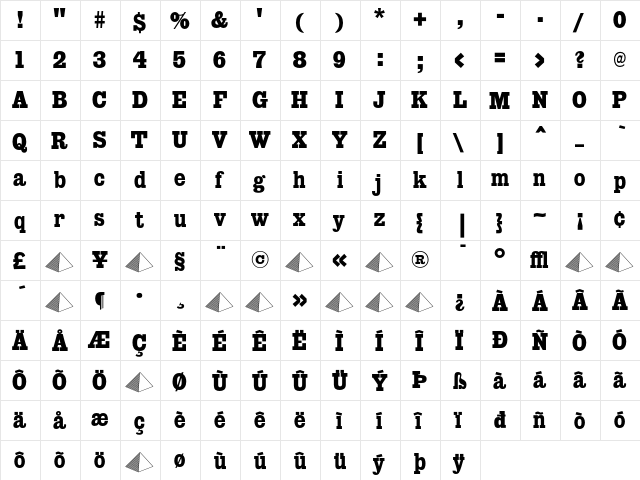
Giza OneThree
Design Context for Giza Typeface
Giza is a composed and adaptable typeface that performs quietly and consistently across a wide range of design contexts.
Pro Tip: Pair Giza with a font of contrasting weight or personality to build a more expressive typographic hierarchy.